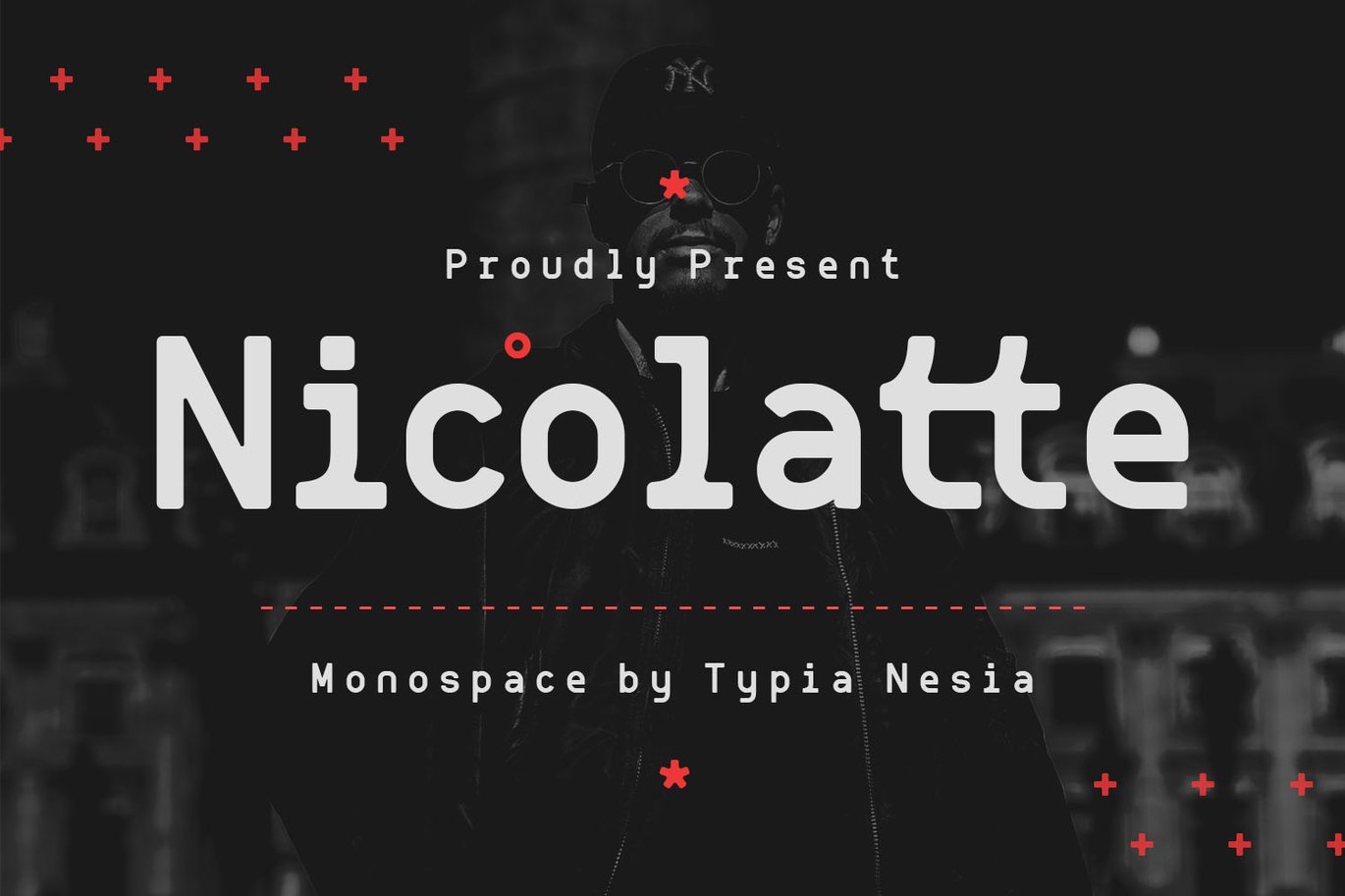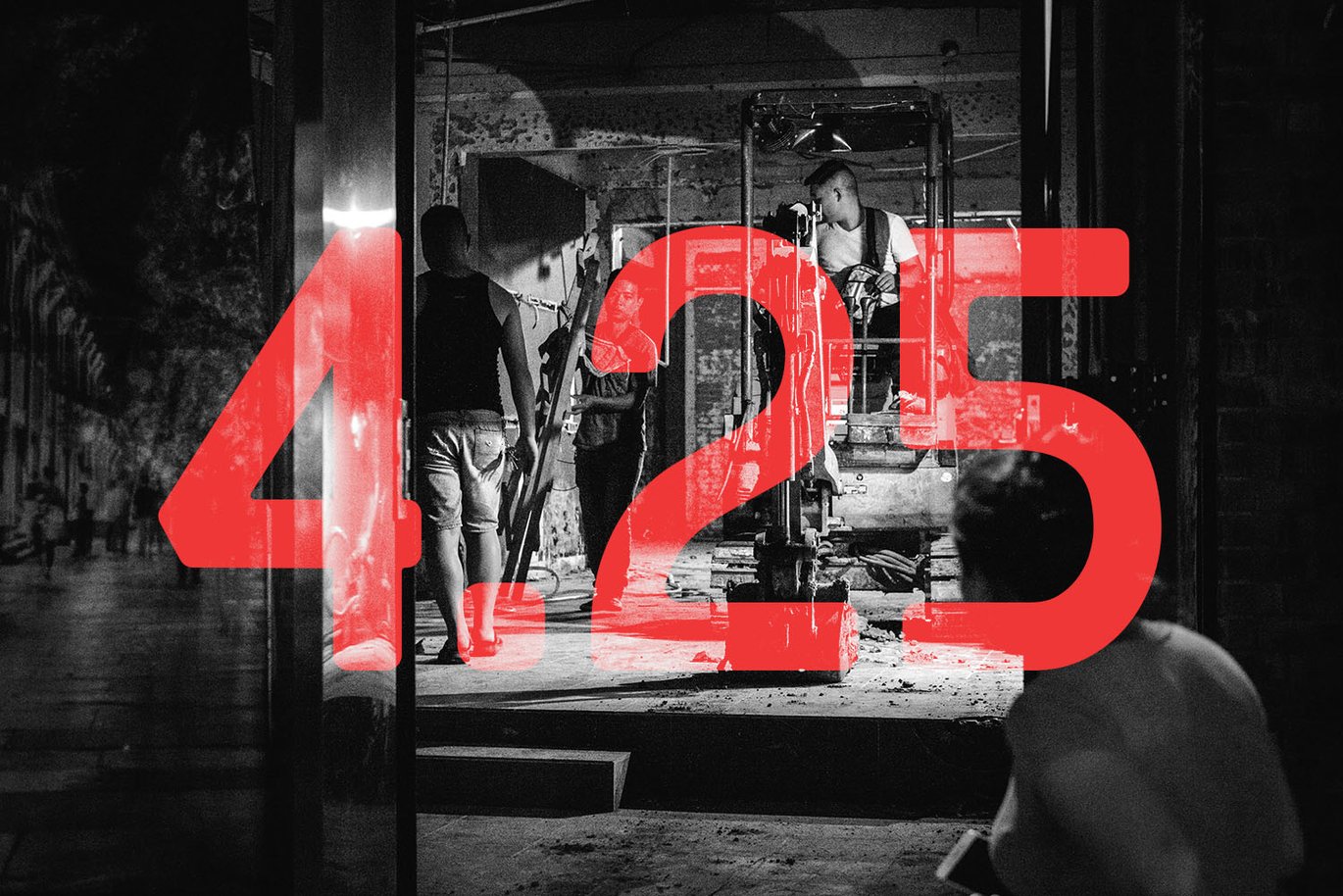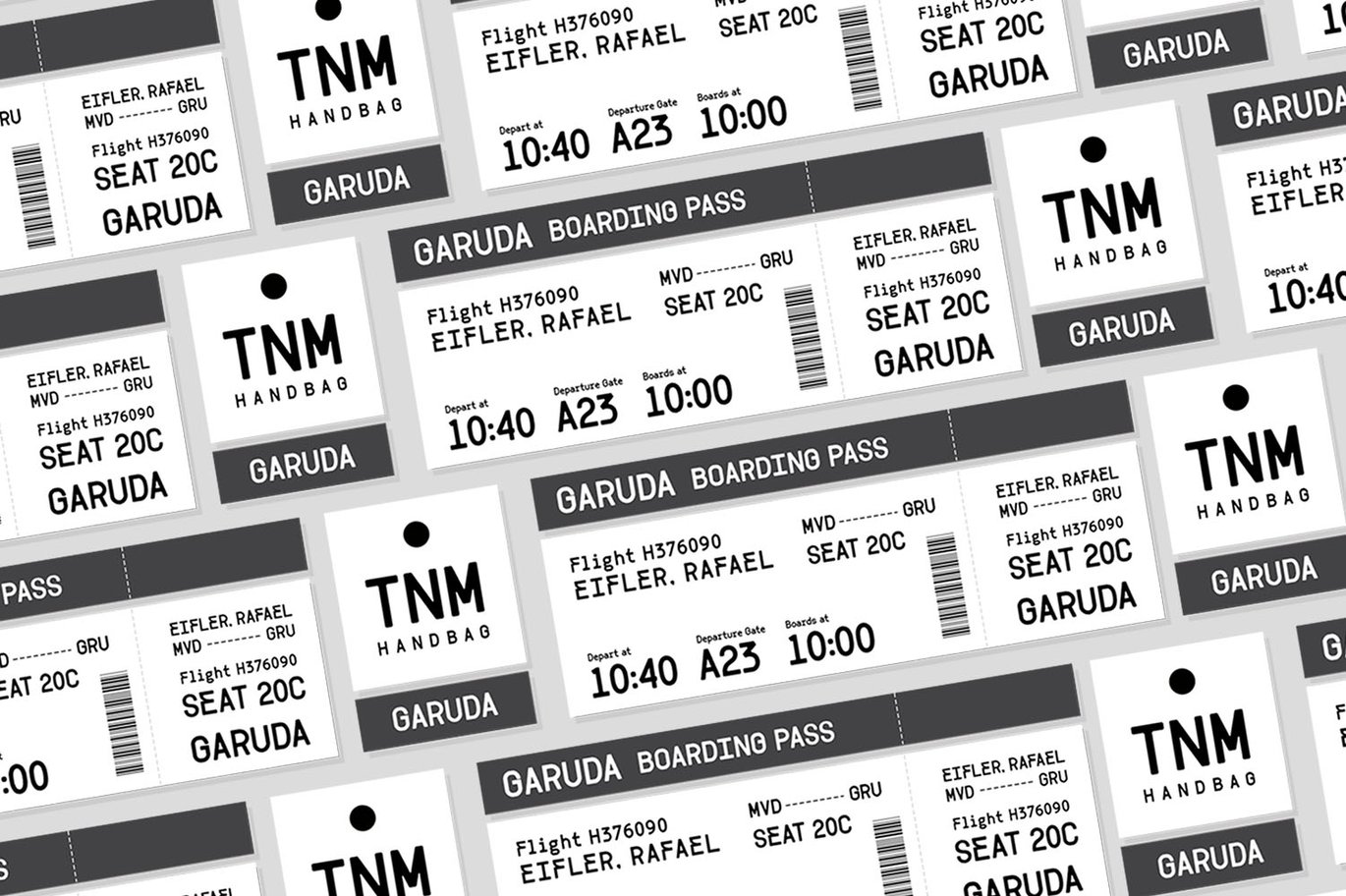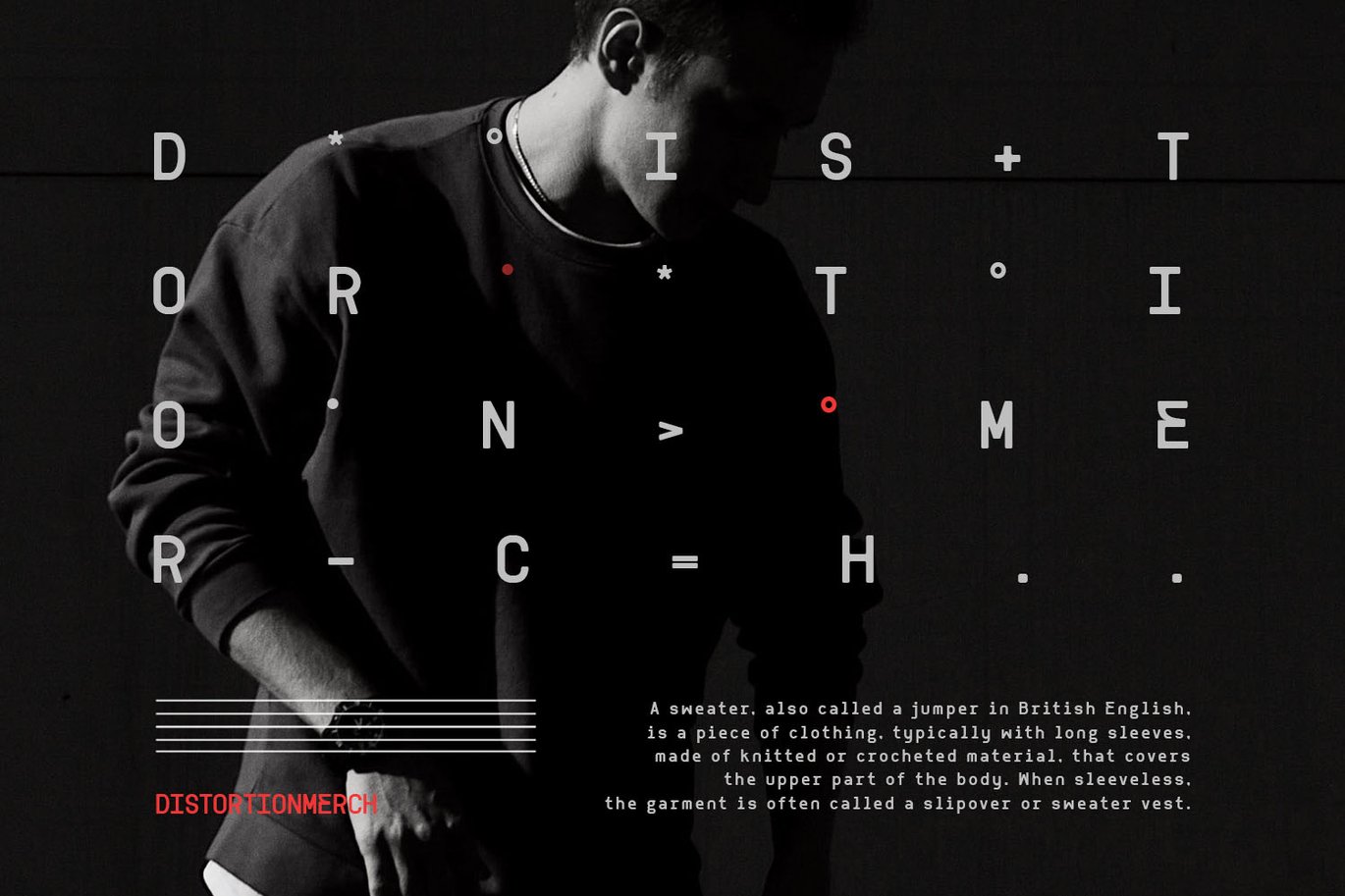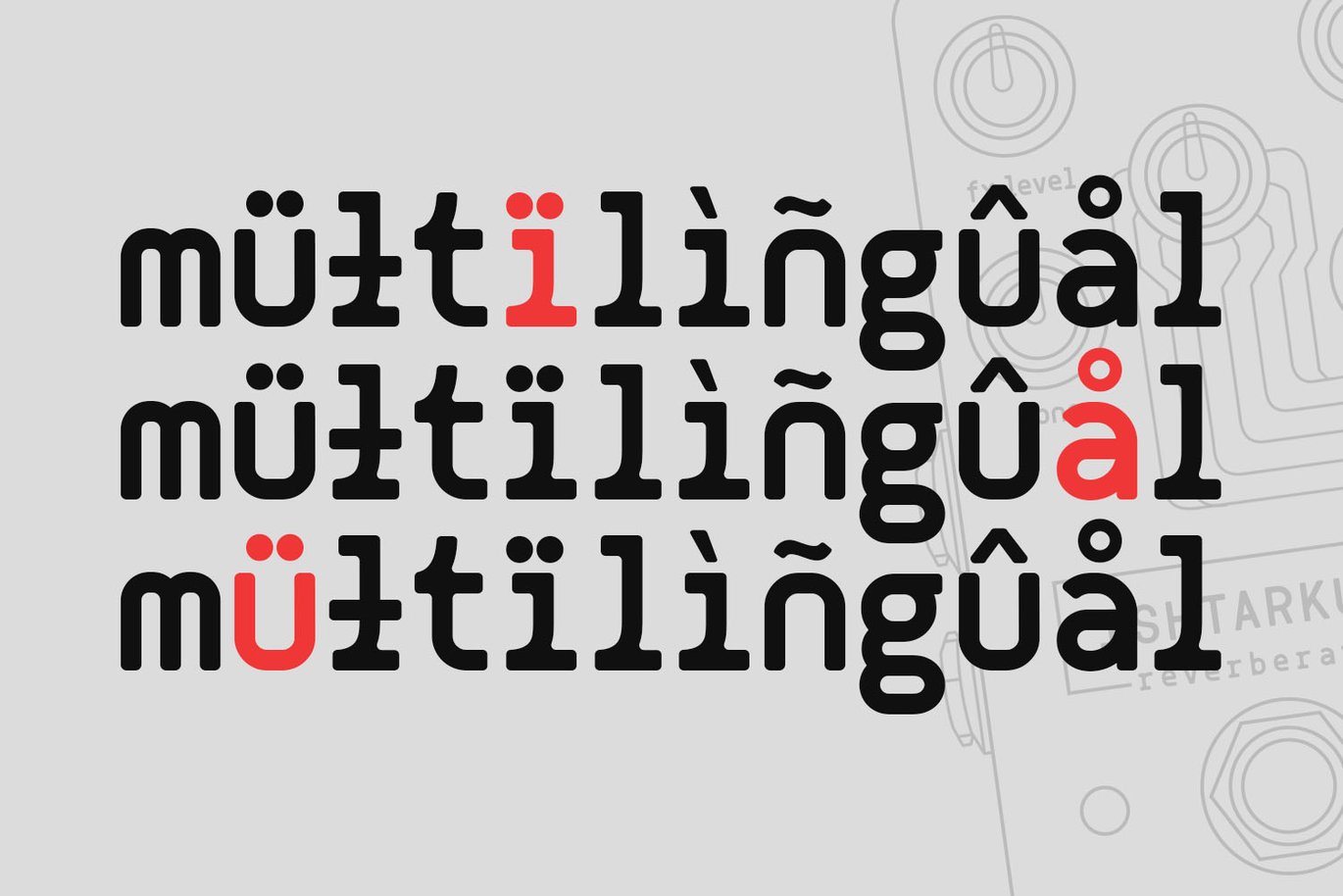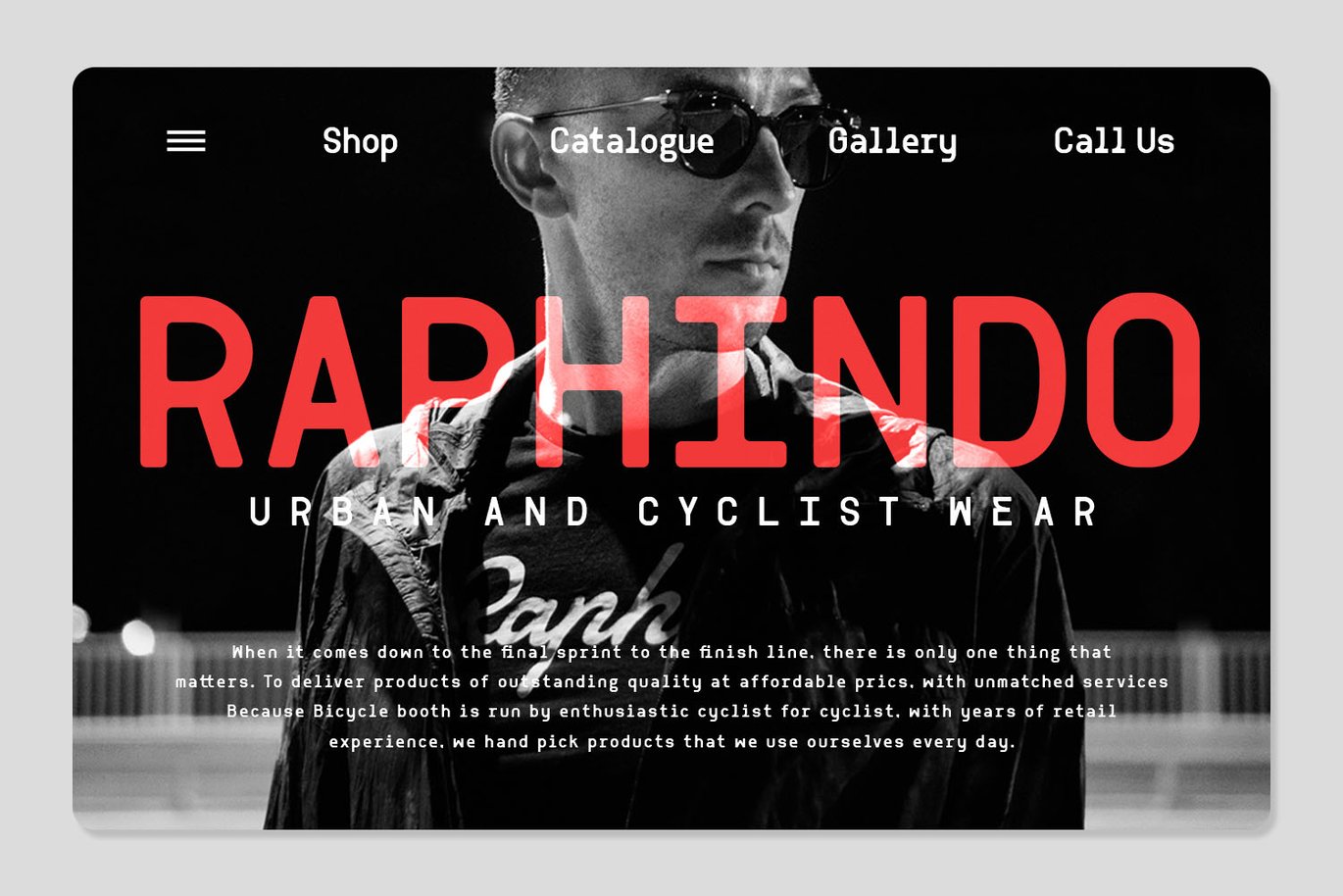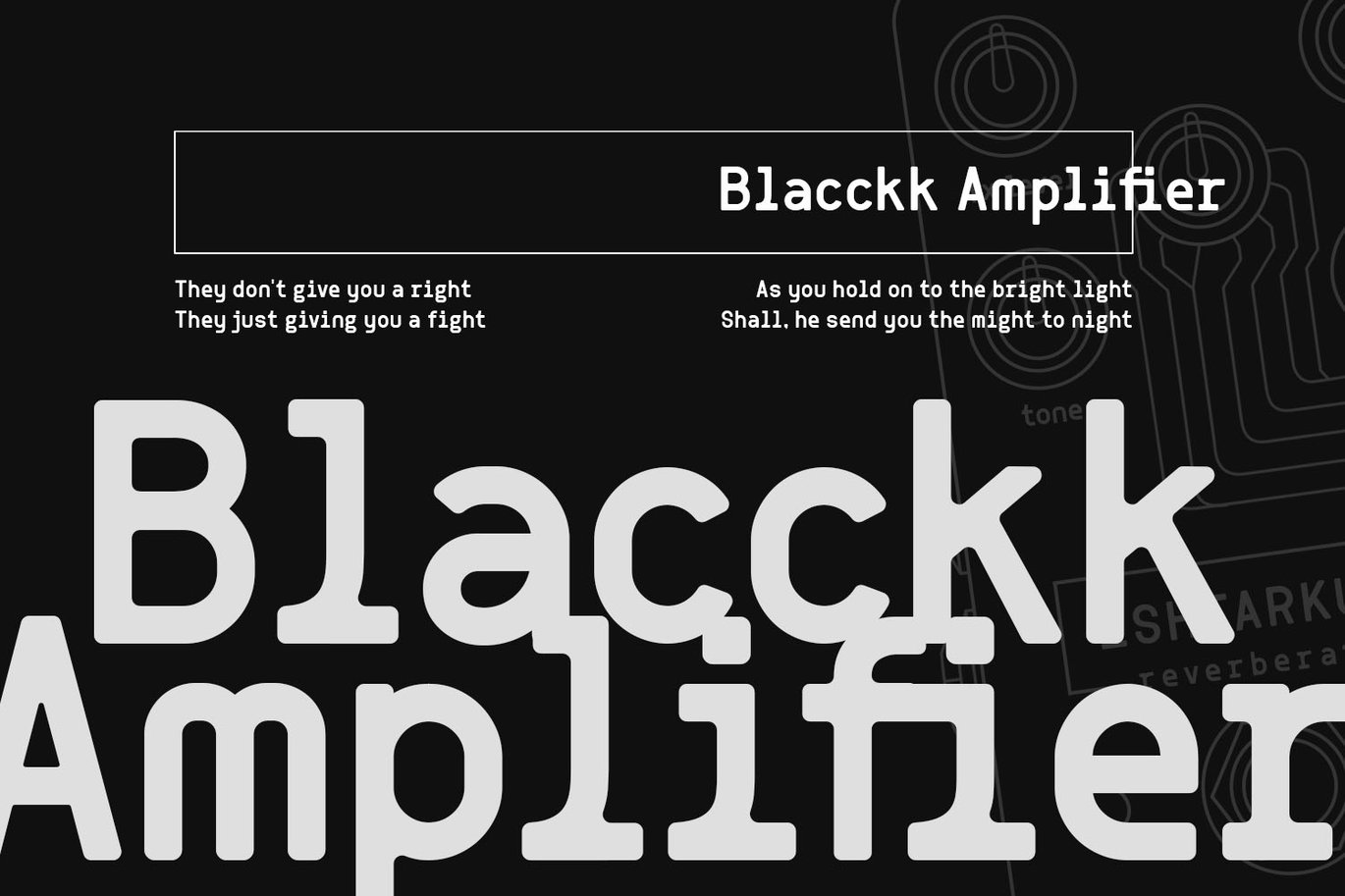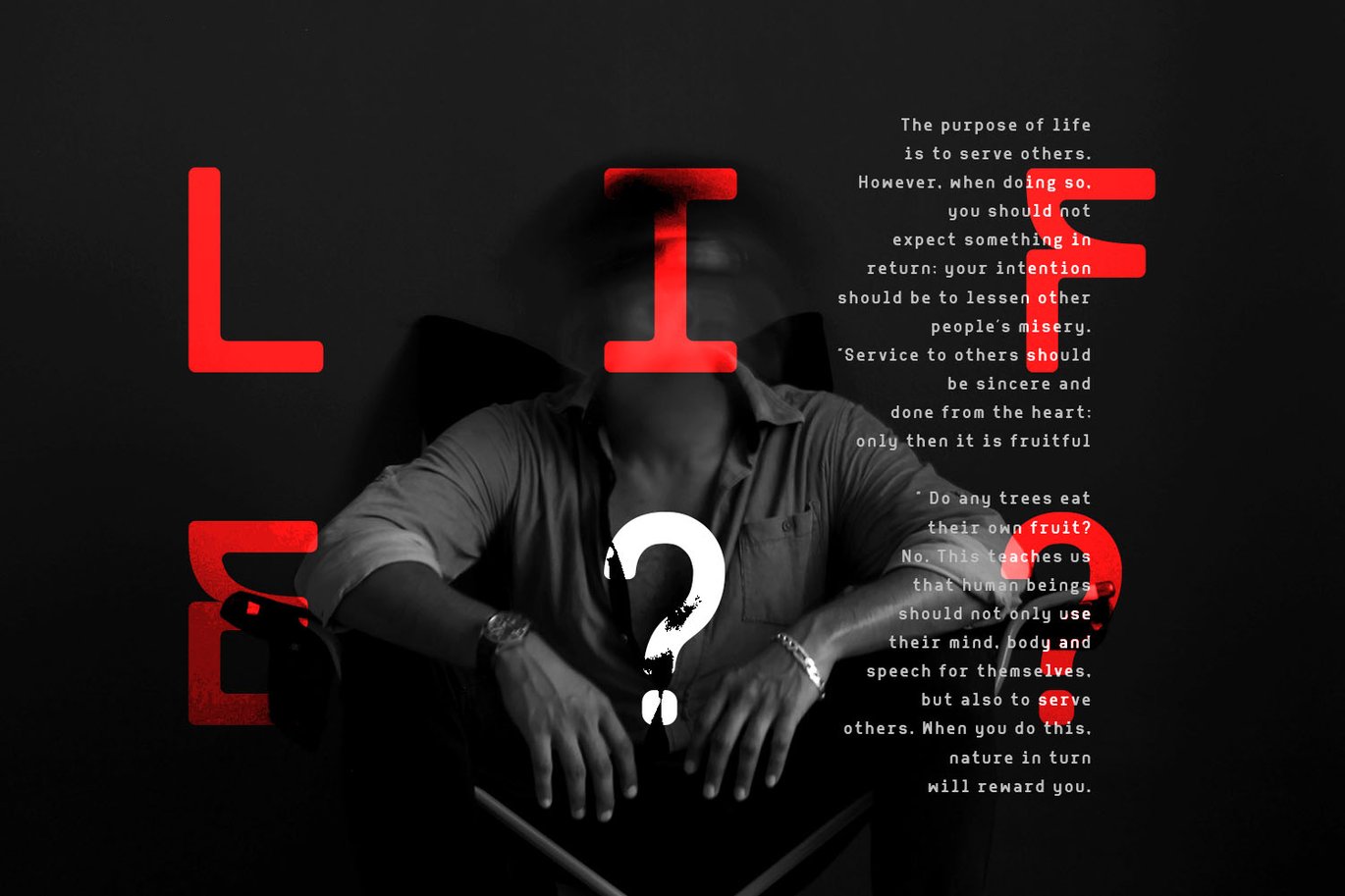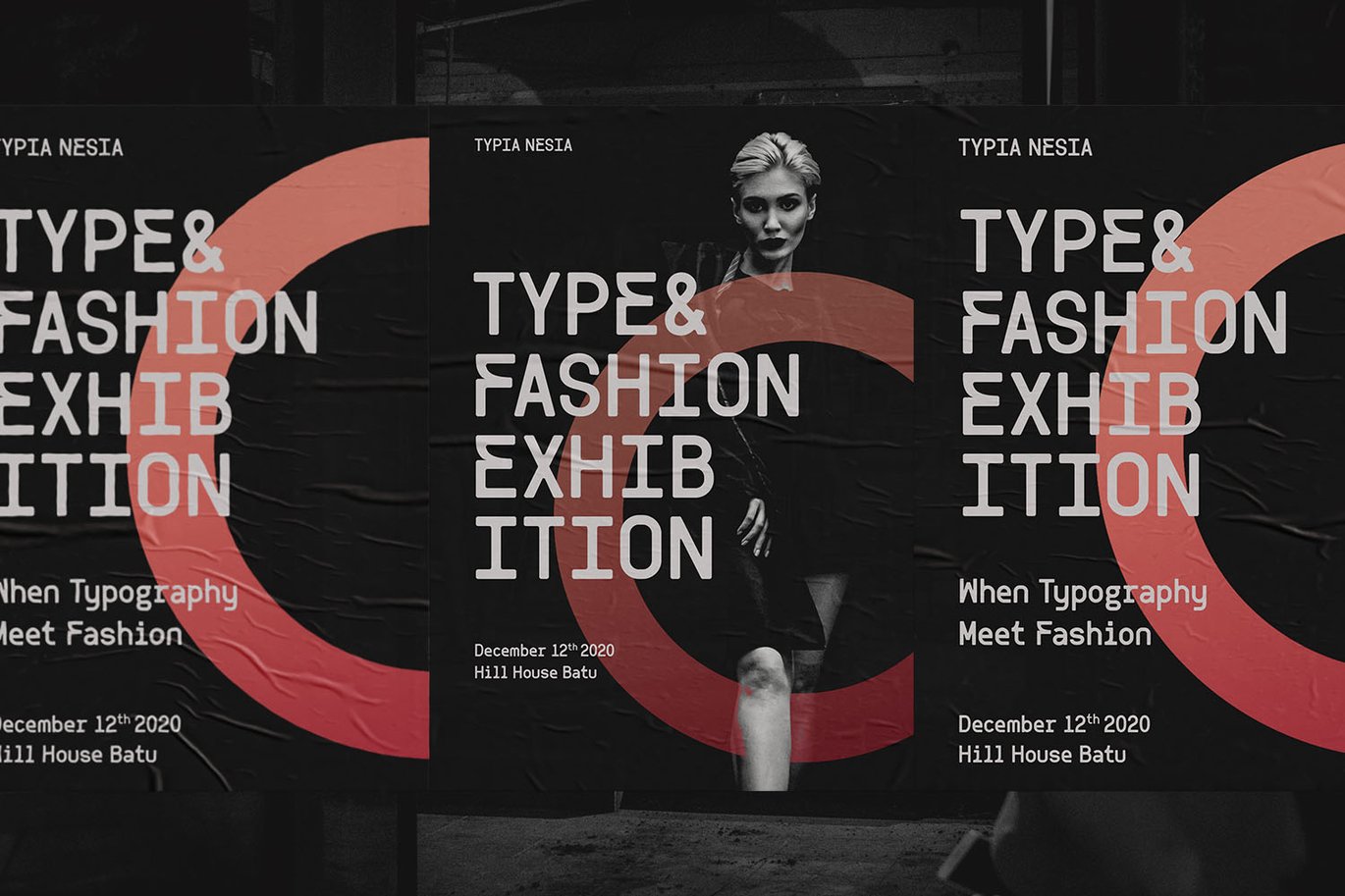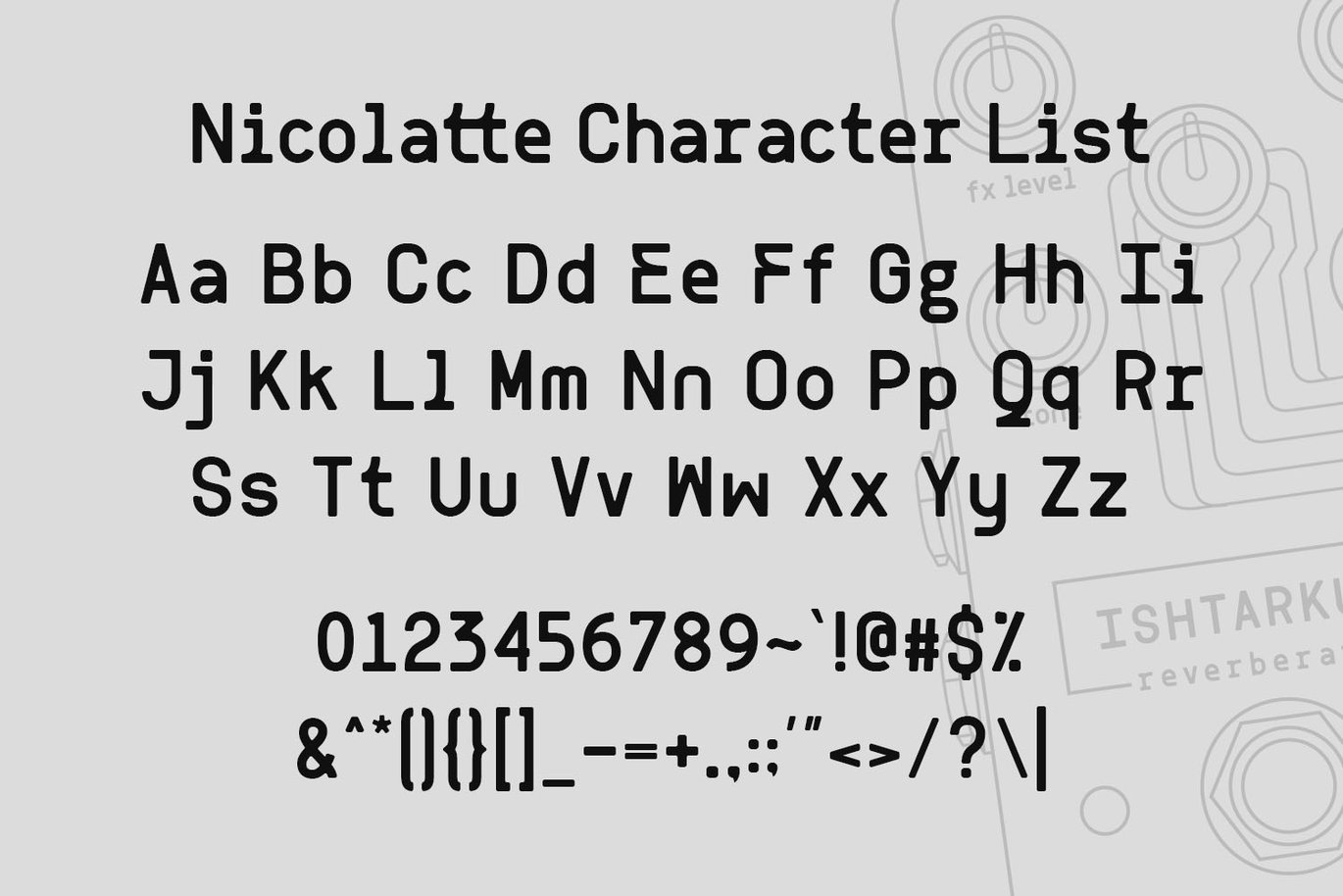
Nicolatte – Monospace Font
Nicolatte – Monospace Sans Font
Nicolatte font can be used in different purposes: logo and branding, scifi poster, product packaging, invitations, advertising, sport apparel, ticket design, digital boarding, game industry, technology industry, movie and any futuristic typography design projects.